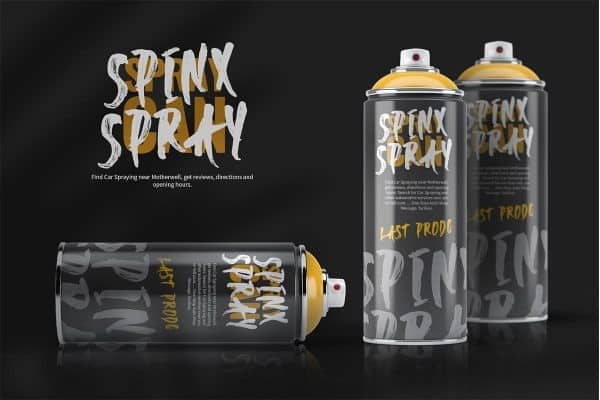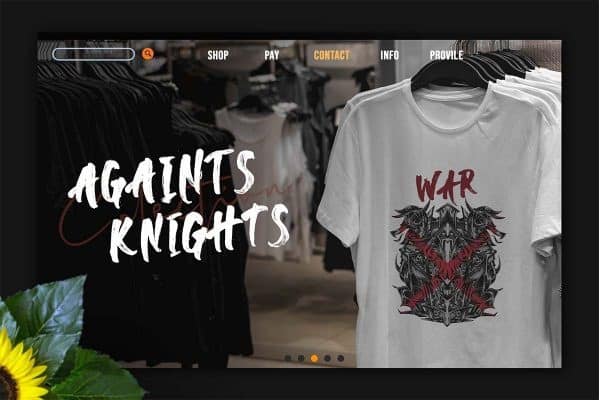
Against Brush Font is modern bold script that perfect for any modern design. It’s designed and shared by Display Studio. This typeset is perfect for brand logos, invitations, greeting cards, or even any kind of project. With multilingual features and style variations, this typeface would further enhance the aesthetical aspect of your work.